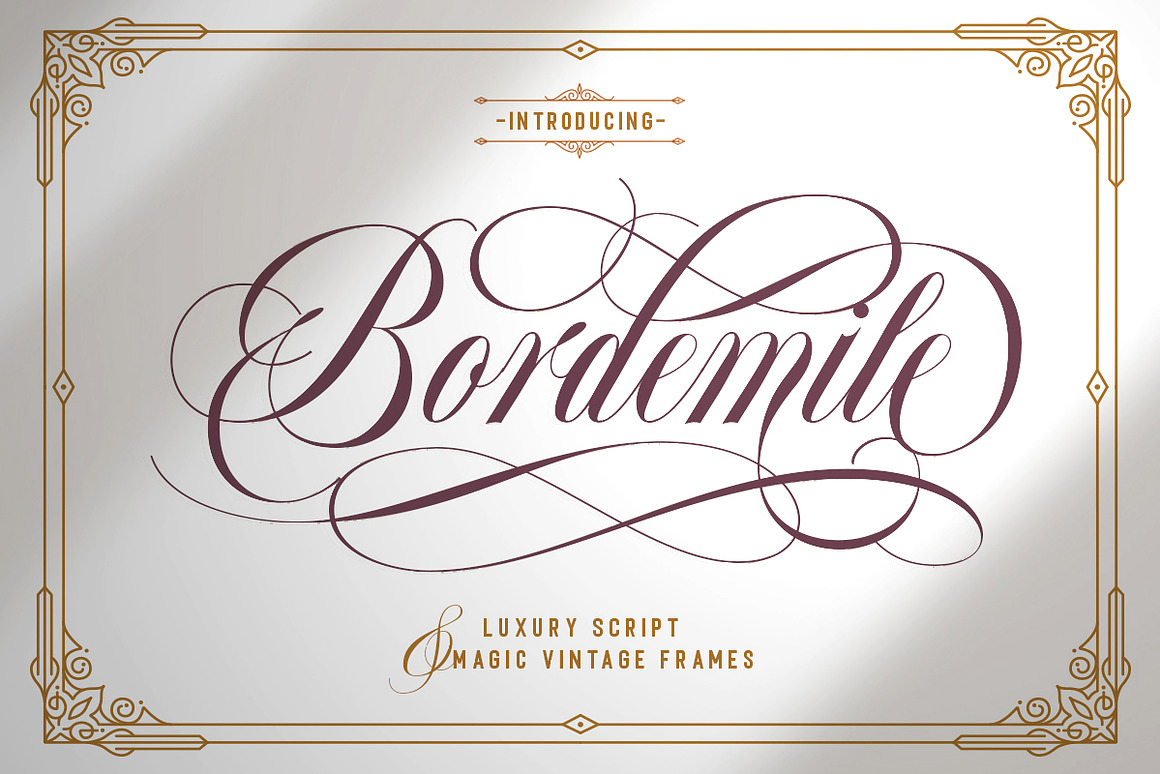
Bordemile - Luxury Script Font
Bordemile Luxury Script Font is perfect for exclusive luxury branding, high-end wedding invitations, premium fashion campaigns, elegant jewelry packaging, sophisticated wine labels, luxury hotel communications, upscale spa materials, and refined advertising projects. This opulent typeface works magnificently in both digital applications and print media where luxurious elegance and exclusive sophistication are paramount design considerations.
What makes Bordemile Luxury Script Font so exciting is its masterful interpretation of aristocratic calligraphy through flowing letterforms that seem penned by royal scribes with generations of courtly refinement and exclusive taste. The font features sumptuous characters with luxurious proportions, elegant flourishes, and opulent details that create an immediate atmosphere of prestige and sophisticated wealth. Its aristocratic personality and luxury heritage make it ideal for brands seeking to establish premium positioning in exclusive markets while appealing to affluent audiences who demand the finest quality and most refined aesthetic experiences.
The Bordemile Luxury Script Font family includes multiple stylistic variations with different luxury intensities, along with ornate alternates and aristocratic embellishments. Each style maintains the typeface's opulent character while offering comprehensive character sets including luxurious numerals, premium punctuation marks, and special symbols designed to enhance exclusive communications and luxury branding efforts across various sophisticated contexts.
This extraordinary typeface represents the perfect fusion of calligraphic tradition and contemporary luxury design for premium lifestyle and hospitality industries. Whether you're developing haute couture brand identities, creating exclusive event materials, or designing luxury hospitality campaigns, Bordemile Luxury Script Font Free Download delivers the aristocratic elegance and versatility needed to captivate the most discerning clientele. The font's luxury appeal makes it particularly effective for high-end fashion houses, exclusive resorts, luxury jewelry brands, and businesses serving ultra-affluent customers who expect nothing less than perfection.
The meticulously crafted aristocratic details and optimized luxury performance in Bordemile Luxury Script Font ensure both exclusive authenticity and clear communication across all premium applications. Its opulent presence makes it perfect for luxury branding, exclusive marketing materials, and aristocratic communications where its full luxury script character can create unforgettable impressions and establish immediate association with wealth, exclusivity, and the ultimate in refined taste.